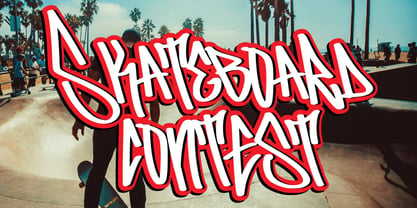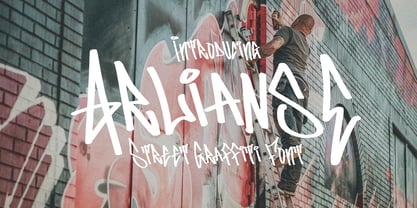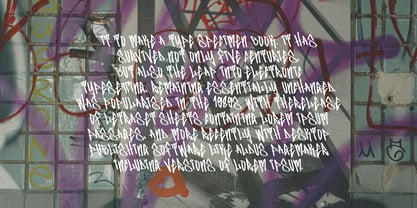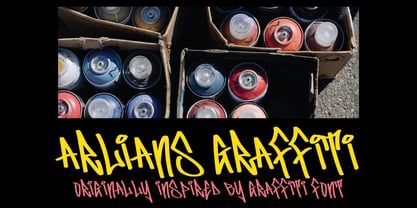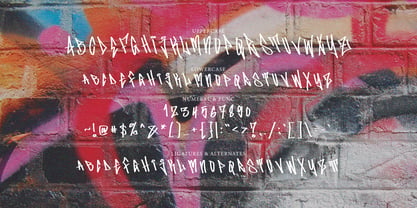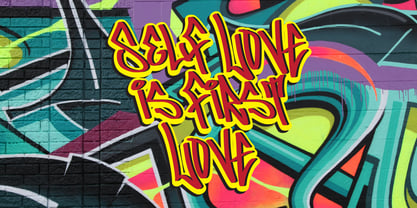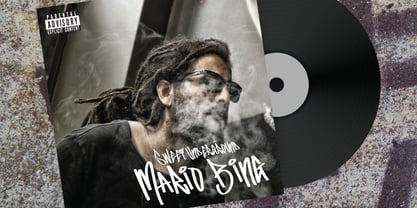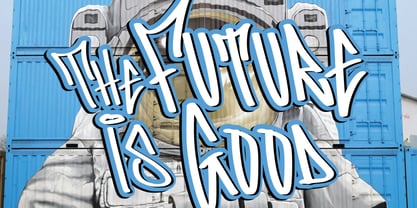
Arlianse Graffiti
by Tebaltipis Studio
The Arlianse Graffiti Font Family was designed by Dzulka Elfira and published by Tebaltipis Studio. Arlianse Graffiti contains 1 styles. More about this family
Bring bold urban energy into your designs with Arlianse Graffiti Font, a street graffiti font inspired by the raw spirit of modern street art. Each letter is crafted with expressive strokes and spontaneous curves, giving the impression of fresh spray paint straight from the city walls. Authentic & Eye-Catching Style Arlianse Graffiti Font delivers a dynamic handwritten look that feels edgy, confident, and full of attitude. It’s designed to stand out and instantly grab attention — perfect for creatives who dare to be different.
Designers: Dzulka Elfira
Foundry: Tebaltipis Studio
Arlianse Graffiti